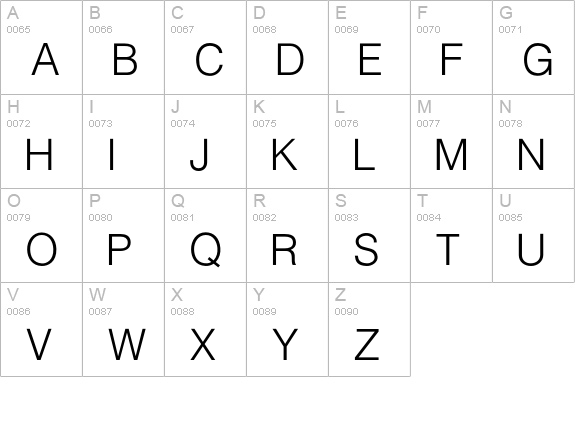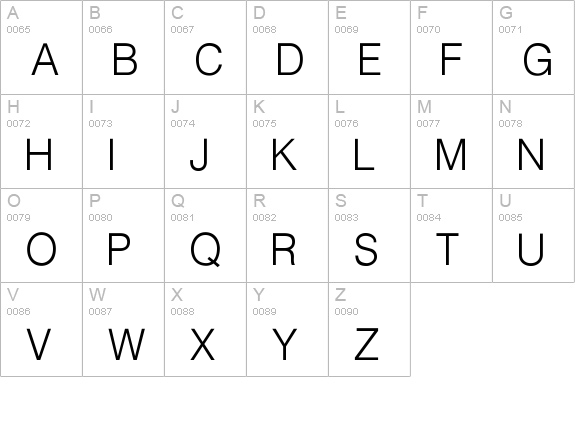
HallmarkeLight Font Details
HallmarkeLight is a stylish and modern font that exudes elegance and sophistication. With its clean lines and graceful curves, this font is perfect for adding a touch of class to any design project. Designed with versatility in mind, HallmarkeLight can be used for a wide range of purposes, from branding and logos to invitations and social media graphics. Its sleek and contemporary look makes it a great choice for both print and digital designs. One of the best things about HallmarkeLight is that it is free! Yes, you read that right. This amazing font is freely available to download at FontsMarket.com. Whether you're a professional designer or a hobbyist, you can now access this exceptional font without any cost. Downloading HallmarkeLight is simple and hassle-free. Just head over to FontsMarket.com and look for the font in their extensive collection. Once you find it, you can instantly download it and start using it in your projects. The versatility and elegance of HallmarkeLight make it a must-have font for designers looking to elevate their creations. Its clean and modern design is sure to make a lasting impression on your audience. So why wait? Download HallmarkeLight for free at FontsMarket.com and let your creativity shine!